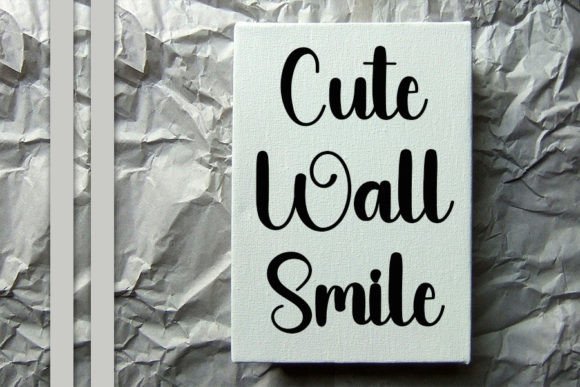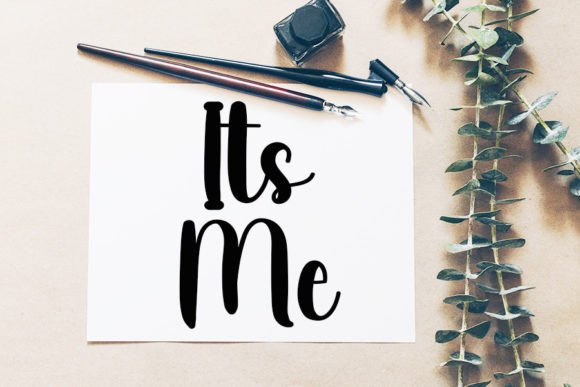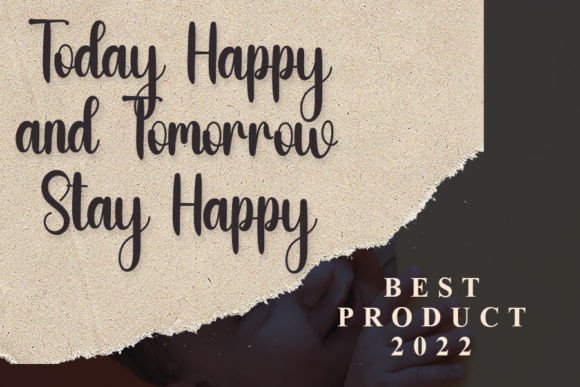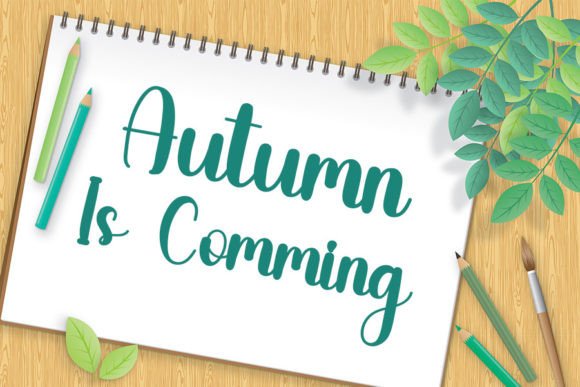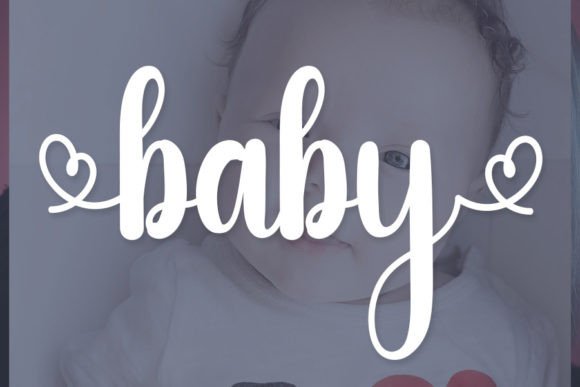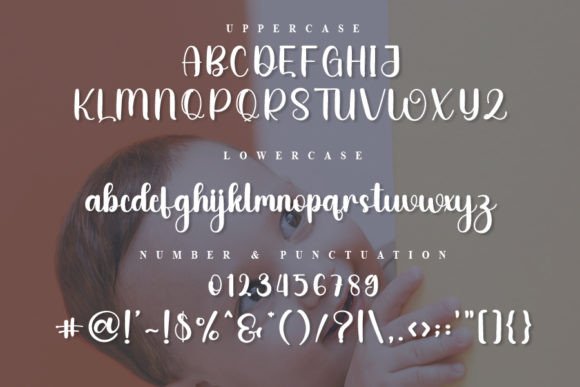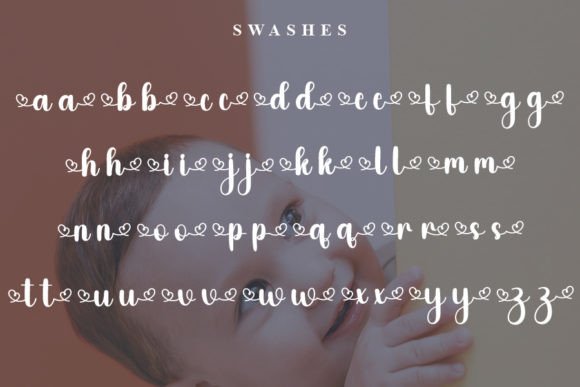
Smile Font
About Smile Font
“Smile” is a font that radiates beauty and refinement, showcasing an exquisite handwritten style. It embodies a perfect blend of classiness and modernity, making it an ideal choice for a wide spectrum of design applications. From crafting logos and establishing brand identities to designing invitations, stationery, wedding materials, and even creating eye-catching social media content, “Smile” emerges as a versatile tool that elevates your designs to new levels of sophistication.
One of the standout features of “Smile” is its PUA encoding. This encoding method grants designers seamless access to a treasure trove of amazing glyphs and ligatures. This opens up a world of creative possibilities, allowing for unique and personalized typography experiences. With “Smile,” you’re not confined to the standard character set; instead, you can explore a rich array of design elements that add depth and character to your projects.
In the realm of design, fonts serve as a cornerstone for conveying a brand’s personality, setting the mood for various occasions, and creating visual harmony. “Smile” excels in this regard, offering a balance between elegance and contemporary flair. Its handwritten aesthetic adds a human touch to your designs, establishing an emotional connection with your audience.
In summary, “Smile” is more than just a font; it’s a tool for crafting visually stunning and emotionally resonant designs. Its beauty and refinement make it a top choice for designers seeking a font that can seamlessly adapt to a wide range of creative projects. With its PUA encoding, it empowers designers to unlock a world of design possibilities, ensuring that each project is unique and captivating. Whether you’re an experienced designer or just starting, “Smile” is your companion for bringing a touch of class and modernity to your work.